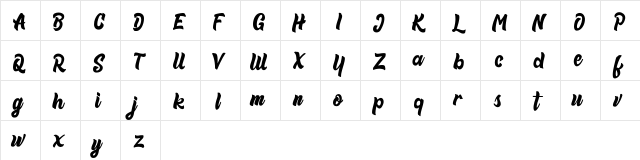
Beneth FREE Regular
Design Context for Beneth FREE Typeface
Beneth FREE is a composed and adaptable typeface that performs quietly and consistently across a wide range of design contexts.